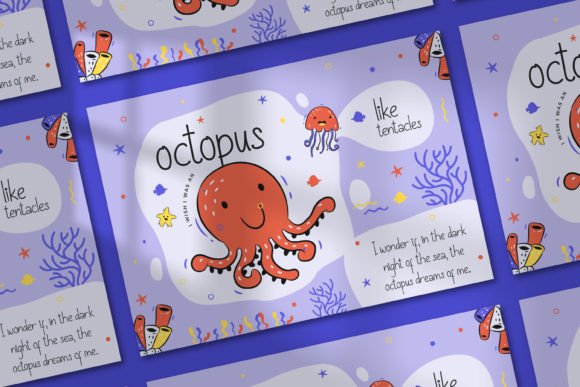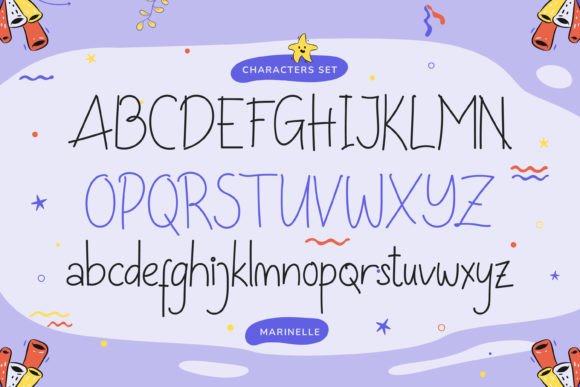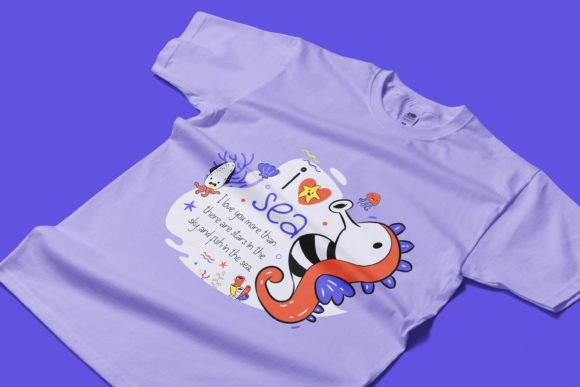
Introduction to Marinelle Font
Have you ever been working on a creative project and suddenly, the perfect font just clicks into place? For designers, this moment is pure magic. It’s the moment when your entire design comes together, and you know you’ve made the right choice. For me, that moment happened when I discovered the Marinelle Font.
This delicate and flowing handwritten font is more than just a pretty face – it’s a design resource that can elevate any project. With its beautiful and well-balanced characters, Marinelle Font is the perfect choice for designers looking to add a touch of elegance to their work. Whether you’re working on a digital design or a print project, Marinelle Font is sure to impress.
Key Features of Marinelle Font
- High-quality, elegant script font perfect for creative projects, ideal for designers looking for a unique design resource.
- Large character set, including uppercase and lowercase letters, numbers, and punctuation marks, making it suitable for a wide range of creative projects.
- Unique, hand-crafted design, offering a distinctive touch to your creative project, setting it apart from more generic fonts.
Honest Review: Marinelle Font
I recently had the chance to work with the Marinelle Font, and I must say it’s been a game-changer for my creative projects. This font is a fantastic addition to any design resource, offering a beautiful, elegant look that’s perfect for a variety of applications.
One of the things that really stood out to me is the high quality of the font. The characters are crisp and clear, with a smooth texture that’s perfect for both digital and print use. I also appreciate that the font comes with a transparent background, making it easy to use in a variety of design scenarios.
Here are some of the things that work well with the Marinelle Font:
- ✨ Elegant, sophisticated look that’s perfect for creative projects
- ✨ High quality characters with a smooth texture
That being said, I did encounter a few limitations with the Marinelle Font:
- ⚠️ Limited language support, which may be a issue for designers working on international projects
- ⚠️ May not be suitable for use in small font sizes, as the characters can appear blurry
Overall, I’m really impressed with the Marinelle Font. While it’s not perfect, it’s a fantastic addition to any design resource, and I highly recommend it for any creative project that requires a high-quality, elegant font.
Marinelle Font is a high-quality design resource that can elevate your creative project to the next level. With its transparent background and elegant style, it’s perfect for designers and non-designers alike.
Tips for Getting the Most Out of Marinelle Font
To get the most out of Marinelle Font, use it in combination with other design elements such as images and graphics. Experiment with different font sizes and styles to create a visually appealing design.
Marinelle Font is perfect for a variety of creative projects, including logos, business cards, and marketing materials. Its elegant style and transparent background make it ideal for modern designs.